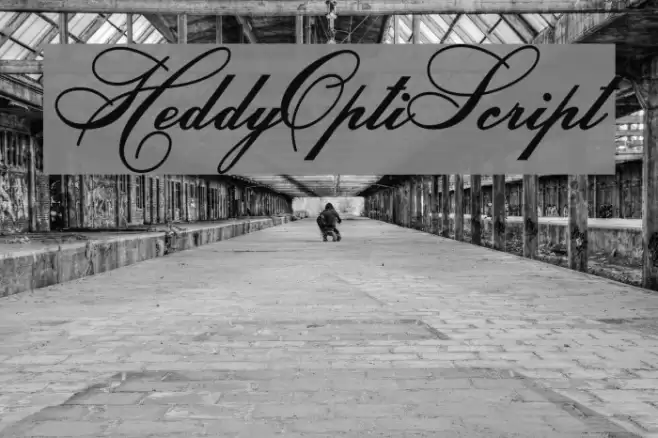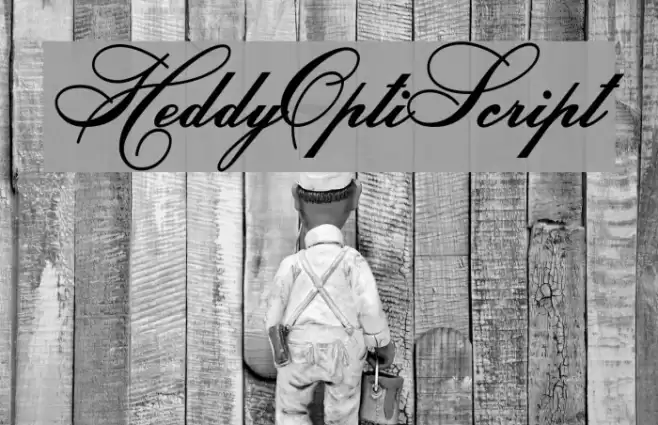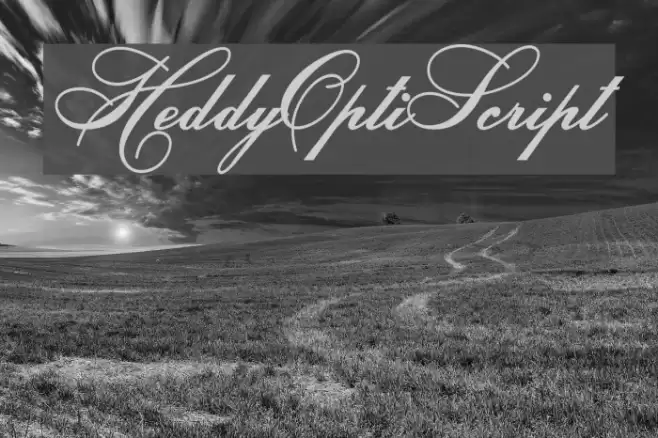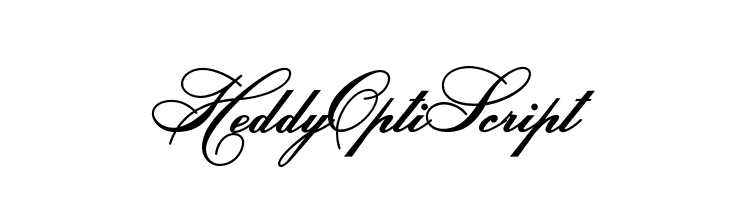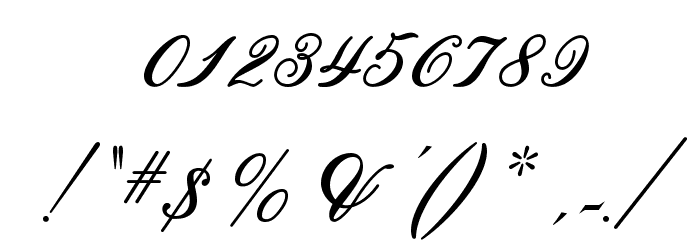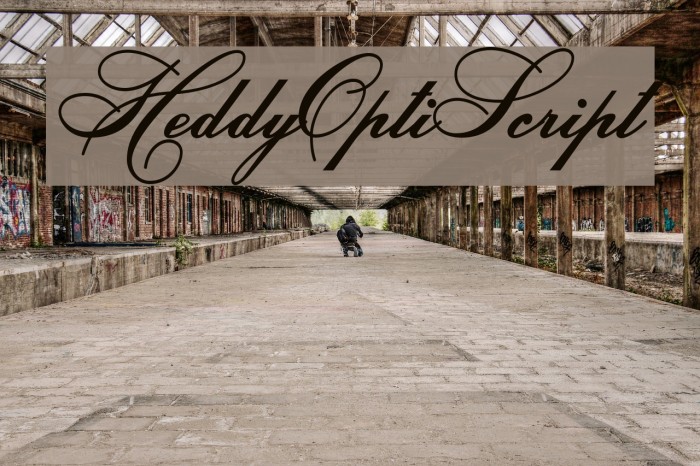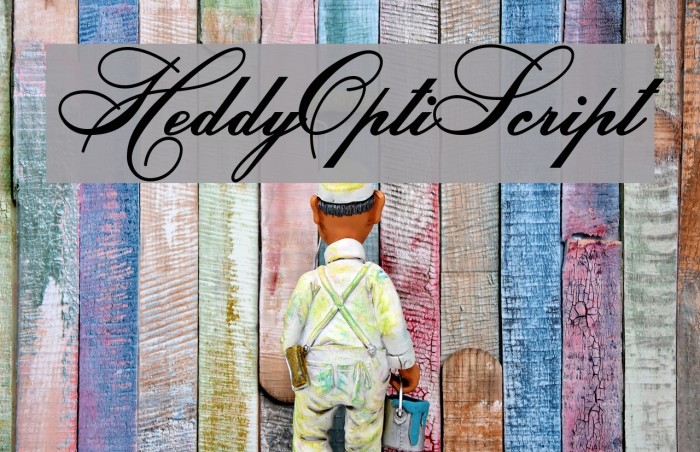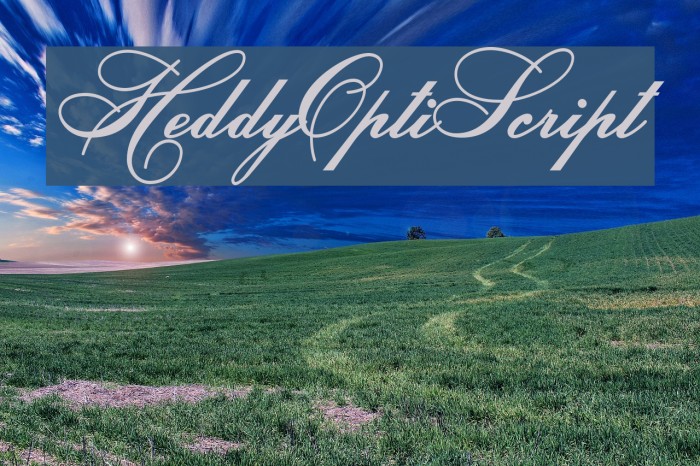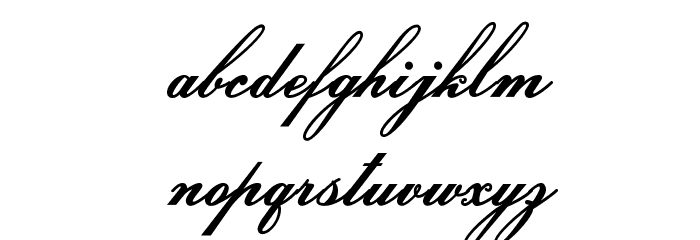
HeddyOptiScript Font
HeddyOptiScript Description
This font exhibits a classic and elegant script style, characterized by its flowing, cursive letterforms that mimic traditional handwriting. The uppercase letters are particularly ornate, featuring intricate loops and flourishes that add a touch of sophistication. The lowercase letters maintain a consistent slant, enhancing the overall fluidity and grace of the script. Numbers and special characters are designed to complement the letterforms, ensuring a cohesive appearance across all text. The font's design is well-suited for formal applications, where a sense of elegance and refinement is desired.
An elegant and ornate script font with flowing, cursive letterforms from Uncategorized fonts.
- Proposed Projects: Ideal for wedding invitations, formal event programs, luxury branding, and elegant stationery.
- Overall Style: Classic
- Use Case: Logos, Invitations, Decorative text